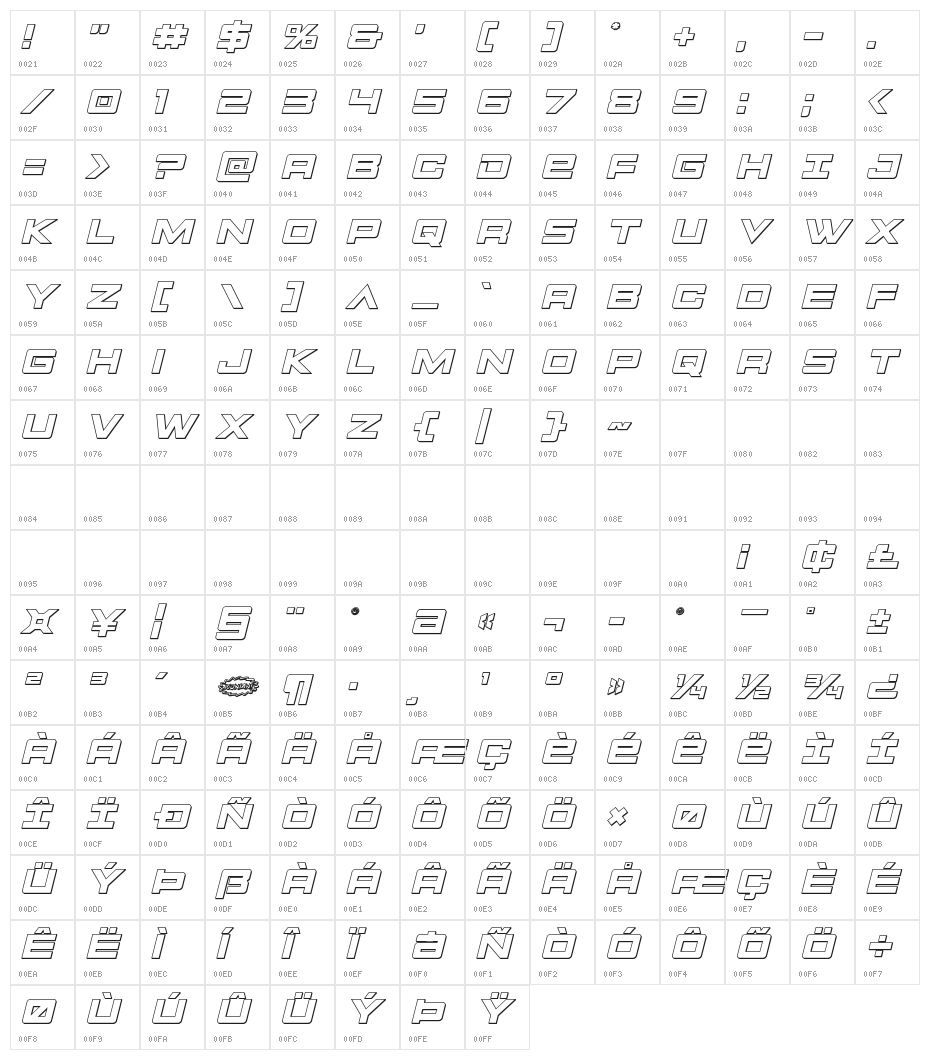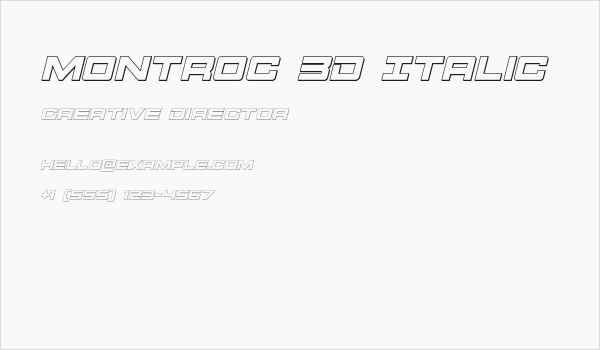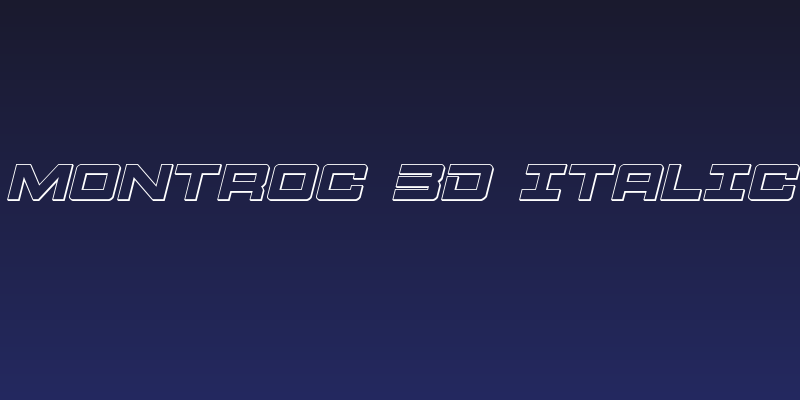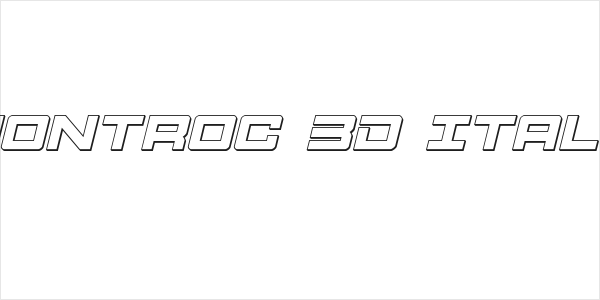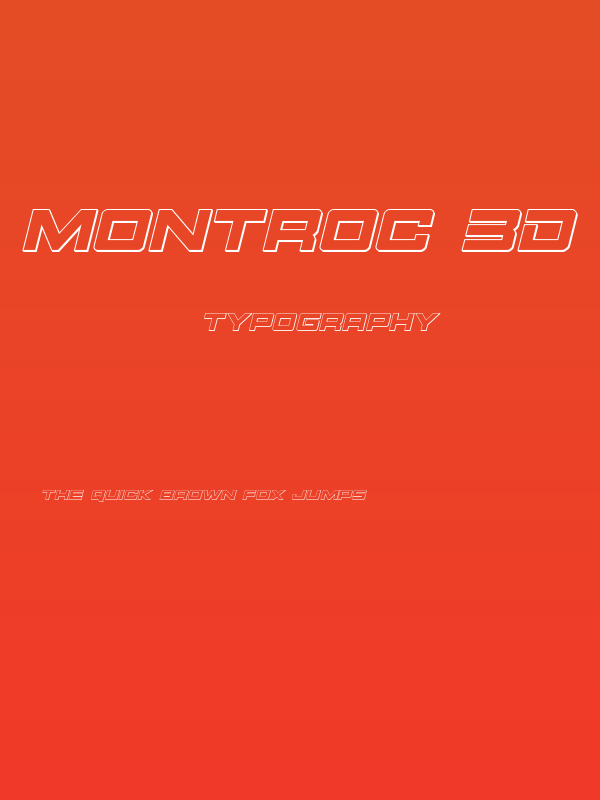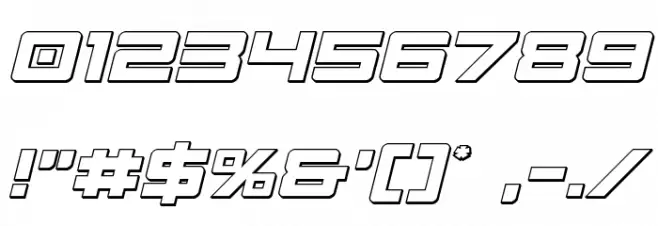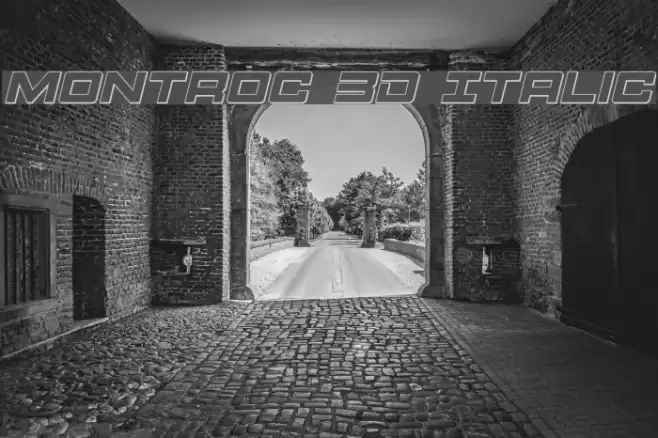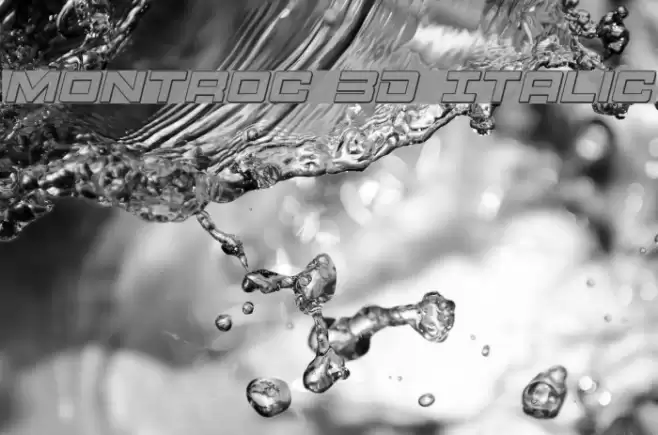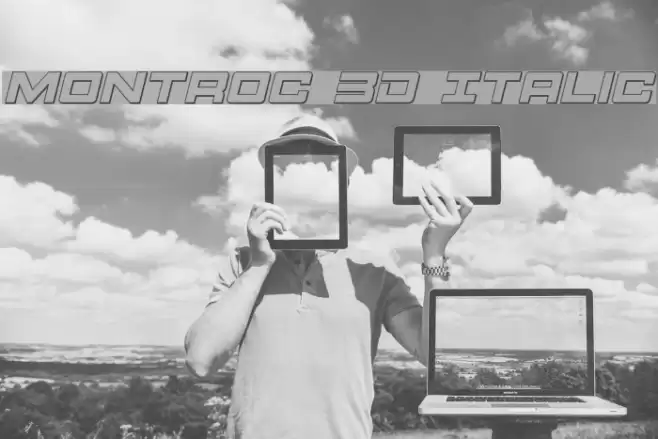
Montroc 3D Italic Font
Montroc 3D Italic Description
This font features a bold, three-dimensional appearance with an italic slant, giving it a dynamic and futuristic look. The characters are outlined, creating a hollow effect that enhances the 3D illusion. The geometric shapes and sharp angles contribute to its modern aesthetic, making it stand out in any design. The uppercase and lowercase letters maintain consistent styling, and the numerals and special characters are designed to match the overall theme. This font is ideal for projects that require a strong visual impact.
| Proposed Projects | Ideal for video game titles, tech branding, futuristic posters, and sci-fi themed designs. |